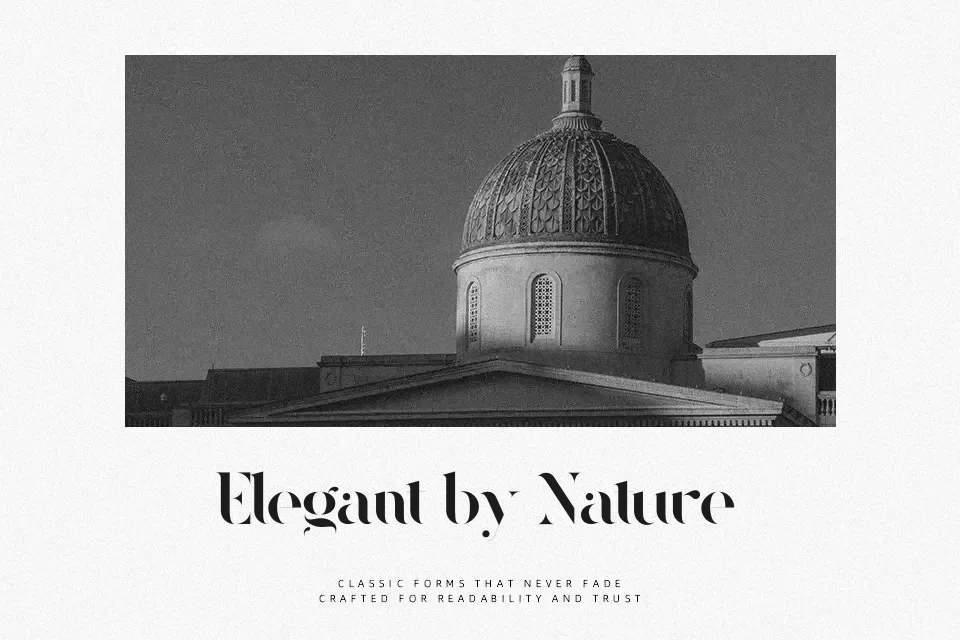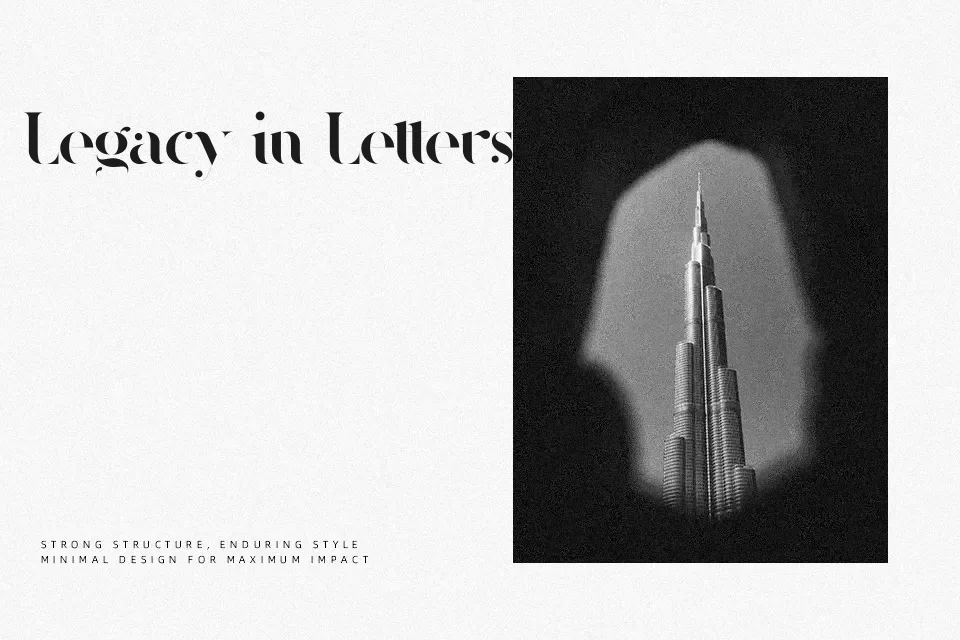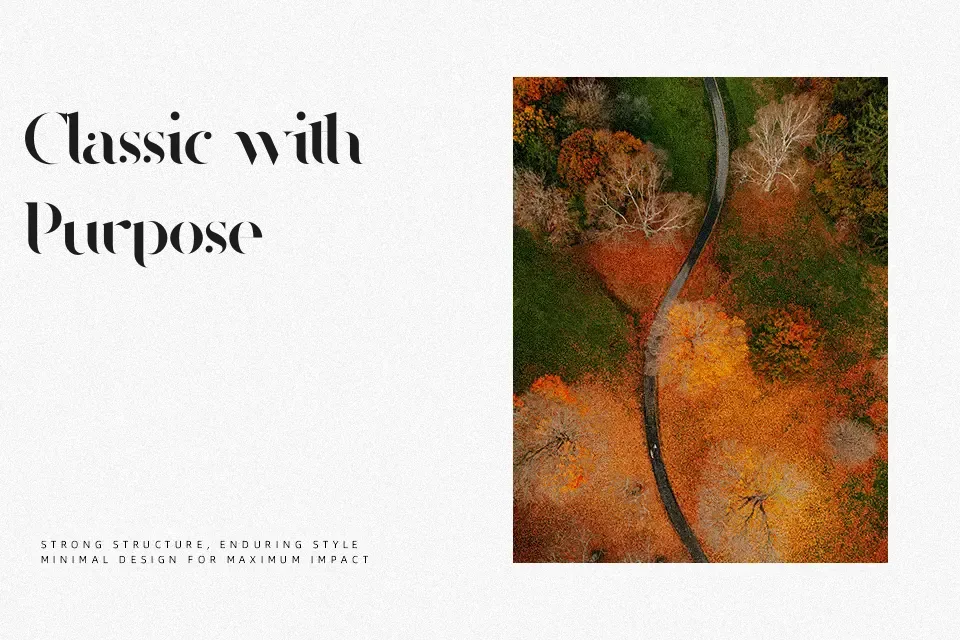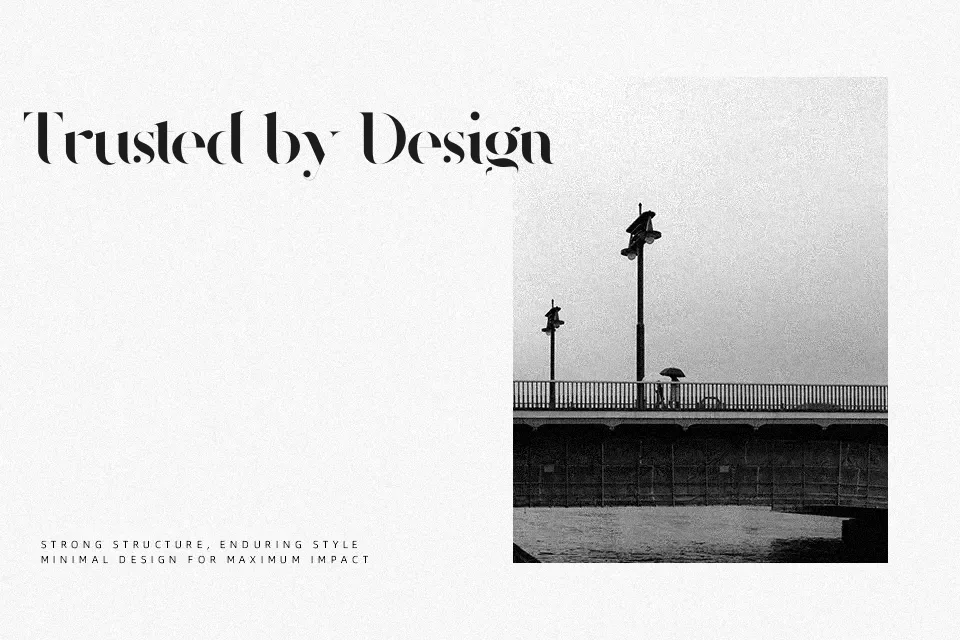
Redland Font
The structural proportions of Redland Font offer a striking balance between traditional serif details and contemporary elegance. Smooth, sweeping contours contrast beautifully with sharp terminal finishes, creating a sophisticated visual rhythm across the baseline. The letterforms maintain distinct clarity in medium to large display settings, allowing for strong typographic hierarchy in branding and editorial layouts. Intentional spacing enhances its premium feel for logo design and luxury product packaging. However, the delicate strokes and decorative flourishes reduce legibility at very small sizes, making it less effective for dense body paragraphs or technical documentation.
High-end cosmetic branding, fashion magazine headlines, wedding invitation typography, luxury boutique logos
Dense paragraph text, small interface labels, spreadsheet data, technical manuals
Perfect for branding, fashion, and headline, with a classic and display style.